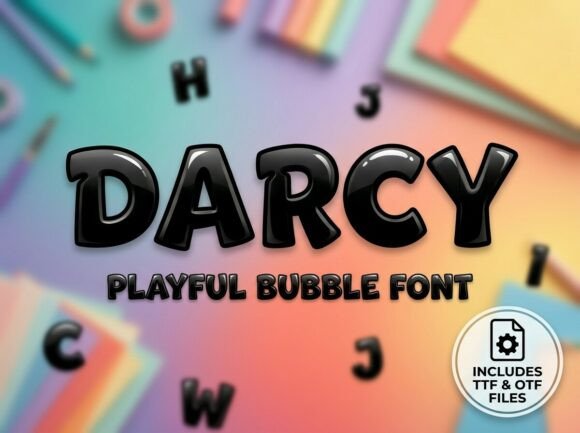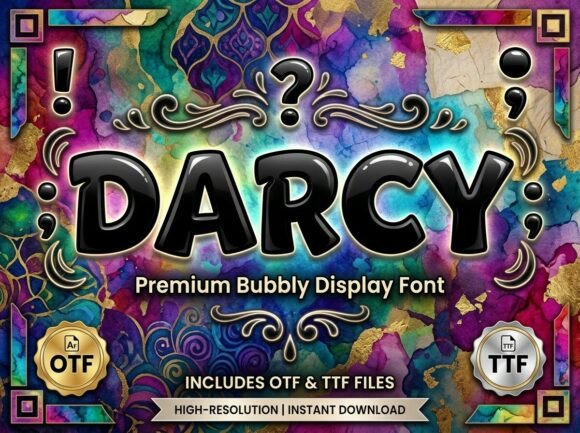
Bring an Explosion of Fun to Your Canvas with Darcy Font
Are you tired of using the same old fonts for your design projects? Look no further than Darcy, a high-energy bubble font that’s sure to bring a smile to your face. With its chunky, ultra-rounded letterforms and rhythmic “glossy” reflections, Darcy is the perfect choice for designers and crafters who want to add a touch of fun and whimsy to their work.
The Inspiration Behind Darcy
Darcy is a typeface that’s all about capturing the “joyful-and-juvenile” soul of retro cartoon nostalgia. Its unique design combines the playfulness of childhood with the sophistication of modern branding, making it the perfect choice for a wide range of projects. Whether you’re designing a logo for a children’s toy store, creating a title for a boutique children’s book, or simply want to add some personality to your social media headers, Darcy is the perfect font for the job.
Key Features of Darcy Font
So what sets Darcy apart from other fonts? Here are just a few of its key features:
- Chunky, ultra-rounded letterforms: Darcy’s letterforms are designed to be friendly and approachable, with a rounded, bubbly quality that’s sure to appeal to kids and adults alike.
- Rhythmic “glossy” reflections: Darcy’s unique reflections give it a sense of depth and dimension, adding an extra layer of visual interest to your designs.
- Inflated structural weight: Darcy’s bold, chunky design makes it perfect for high-impact applications, from social media headers to billboards and beyond.
Use Cases for Darcy Font
So what kinds of projects is Darcy best suited for? Here are just a few ideas to get you started:
- Independent toy store identities: Darcy’s playful, whimsical design makes it perfect for toy stores, game shops, and other businesses that cater to kids.
- Boutique children’s book titles: Darcy’s friendly, approachable design makes it a great choice for children’s book titles, adding a touch of personality and whimsy to your book covers.
- Creative preschool logos: Darcy’s bold, chunky design makes it perfect for preschool logos, conveying a sense of fun and energy that’s sure to appeal to kids and parents alike.
- High-impact social media headers: Darcy’s bold, eye-catching design makes it perfect for social media headers, helping you stand out in a crowded online landscape.
Why Choose Darcy Font?
So why should you choose Darcy for your next design project? Here are just a few reasons:
- Unique and eye-catching design: Darcy’s bold, chunky design is sure to turn heads and grab attention.
- Highly versatile: Darcy’s friendly, approachable design makes it suitable for a wide range of projects, from children’s book titles to social media headers.
- Easy to read: Despite its bold, chunky design, Darcy is surprisingly easy to read, making it perfect for body text as well as headlines.
If you’re looking for a font that’s fun, playful, and sure to bring a smile to your face, look no further than Darcy. With its unique design, bold personality, and highly versatile approach, Darcy is the perfect choice for designers and crafters who want to add a touch of whimsy to their work. So why wait? Download Darcy today and start bringing an explosion of fun to your canvas!